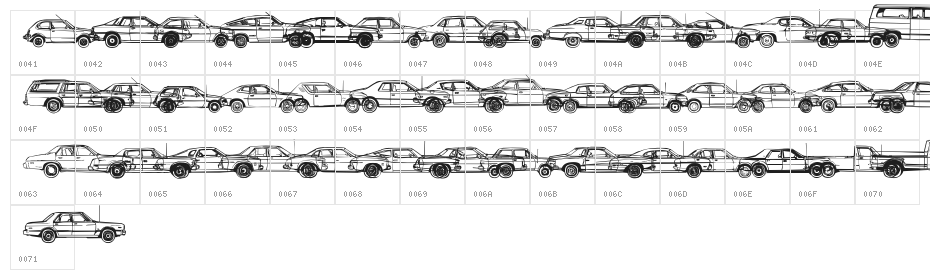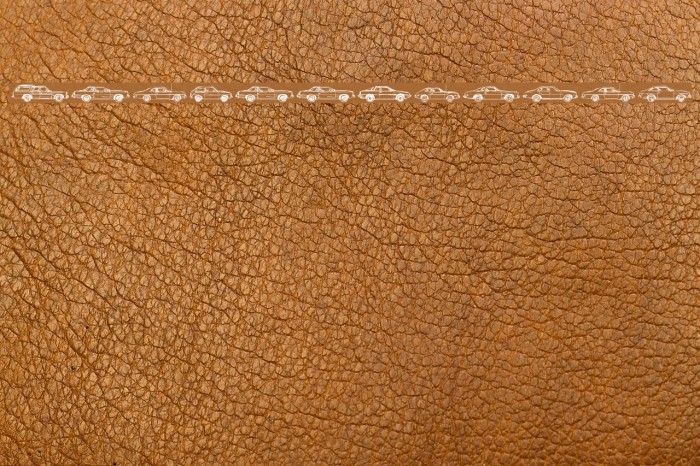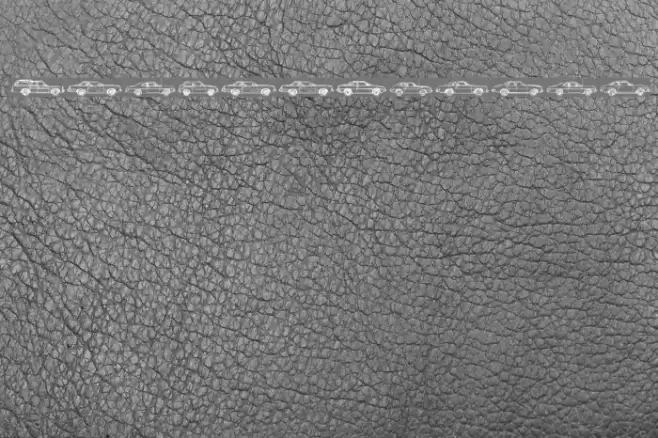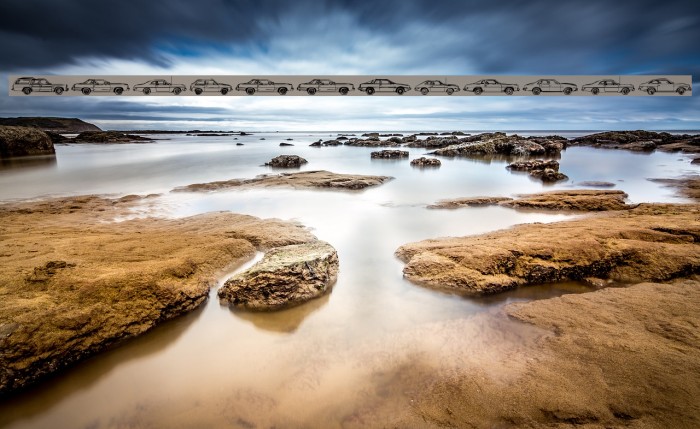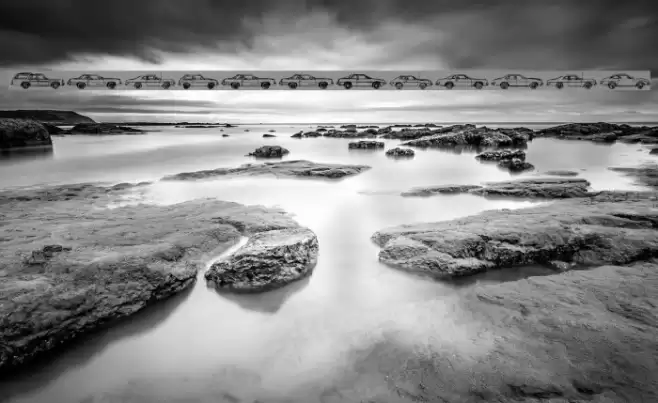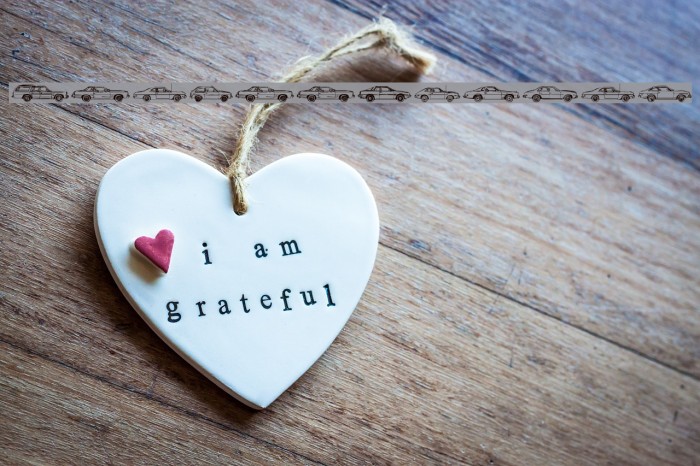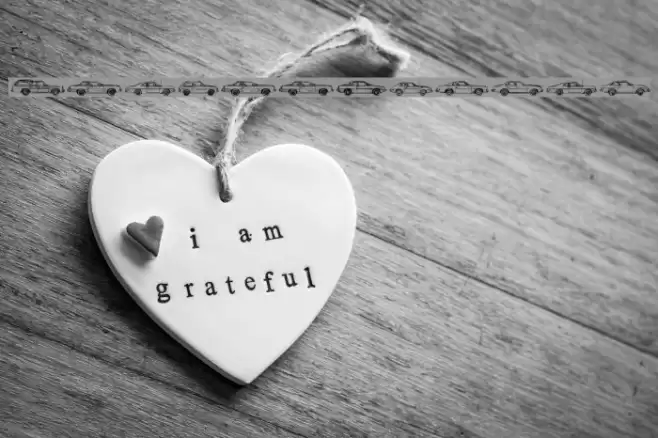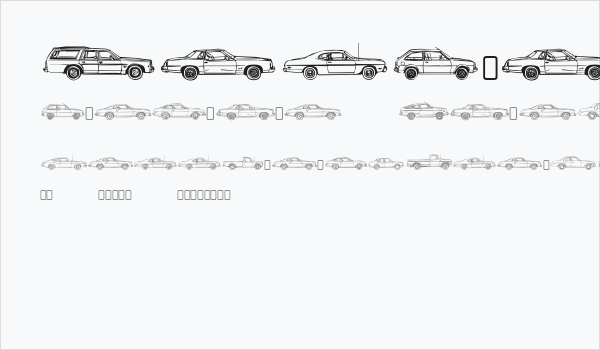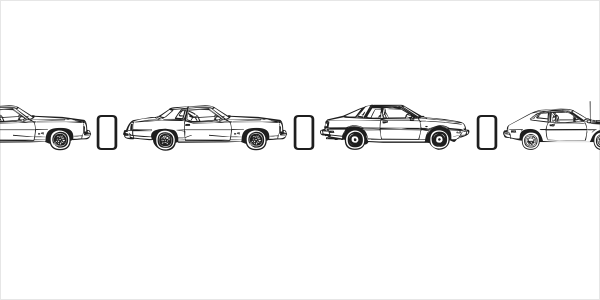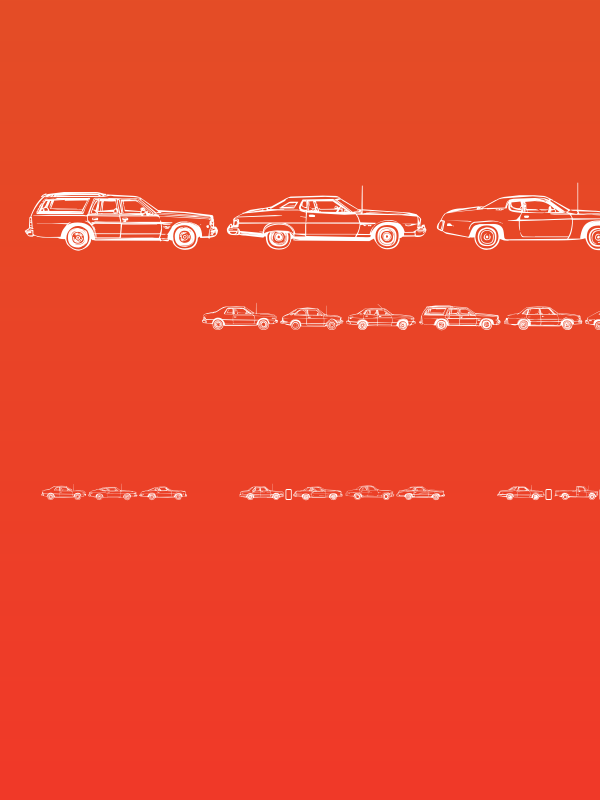
OilCrisisB-Regular Font
OilCrisisB-Regular Description
A decorative font composed of detailed line art illustrations of vintage cars and trucks, with some glyphs represented as outlined rectangular shapes. Each character is a unique vehicle or a geometric outline, creating a playful and thematic automotive appearance.
| Overall Style | Decorative, Thematic, Playful |
| Use Case | Logos, Headlines, Themed graphics, Posters |
| Proposed Projects | Posters, automotive event flyers, themed invitations, novelty signage, educational materials about cars. |